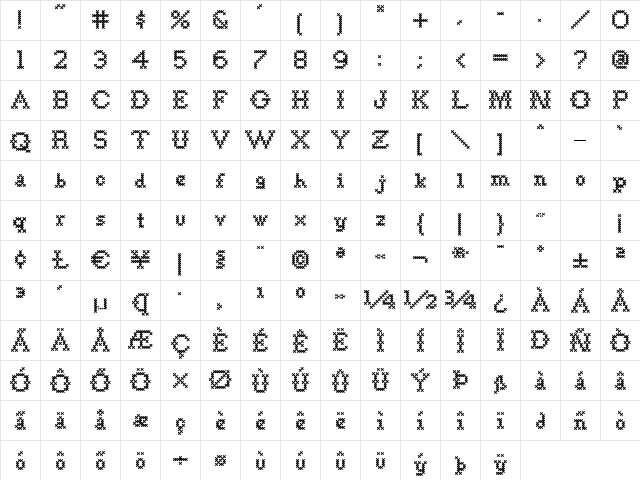
Goodbye Crewel World NF Regular
Foundry: Nick's Fonts
Designer: Nick Curtis
Design Context for Goodbye Crewel World NF
Goodbye Crewel World NF is a composed and adaptable typeface that performs quietly and consistently across a wide range of design contexts.